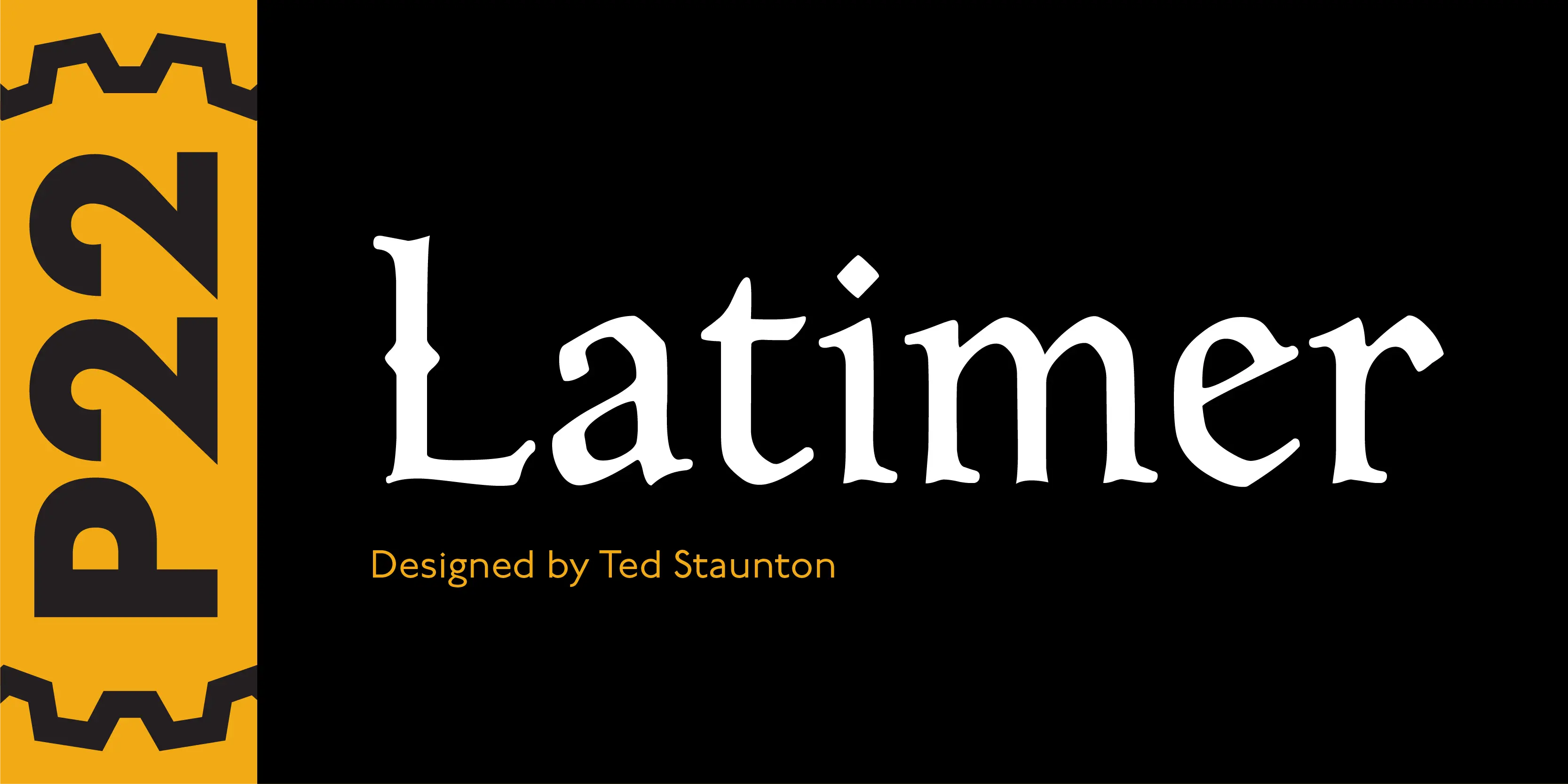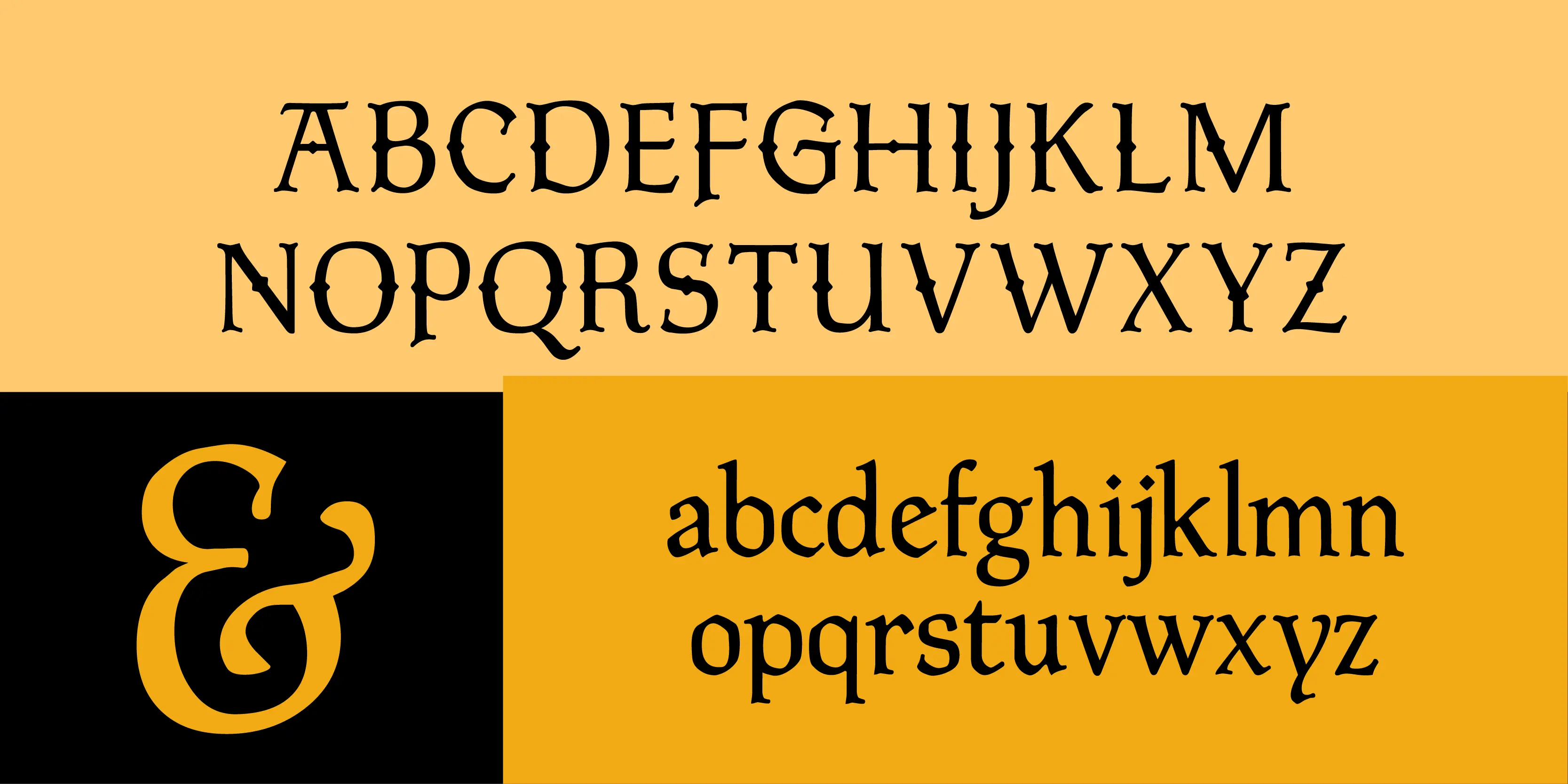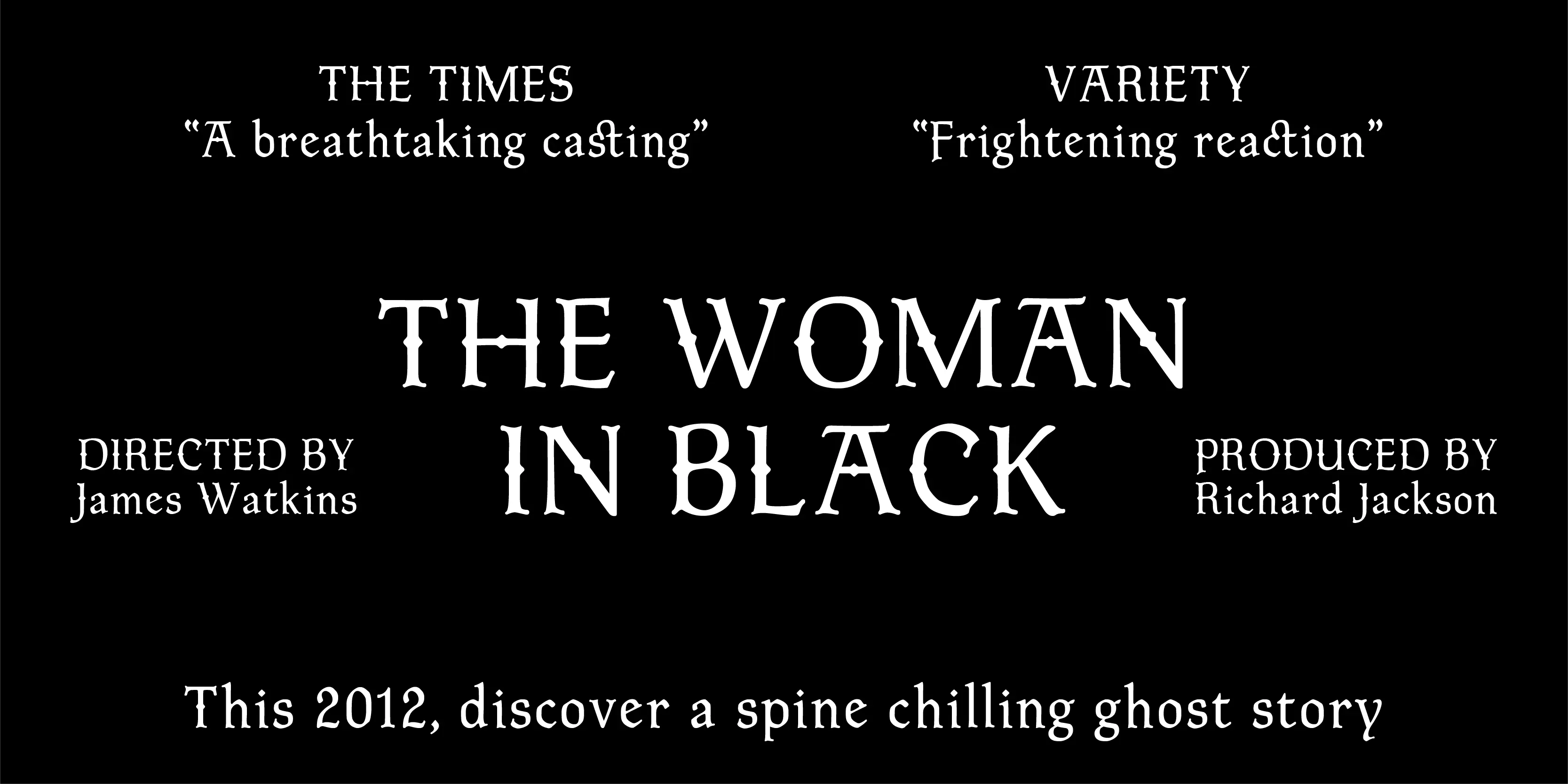
Latimer Font
Latimer
Latimer is one of a series exploring a fusion of Roman and Gothic forms. Characteristics of each genre can be seen: the fluid tapering serifs and rounded shapes of the Roman form, contrasted with the angular diamond and hexagonal shapes of Gothic.
- Common Ligatures
- Discretionary Ligatures